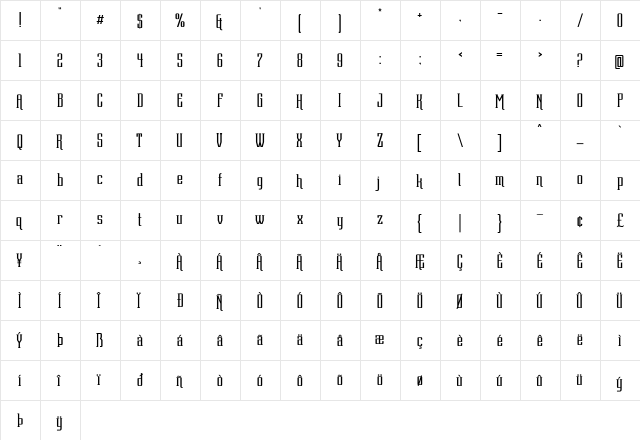
Dentra Font Regular
| Foundry | Ferdiansyah_IjemRockart |
| Designer | Ferdiansyah_IjemRockart |
Design Context for Dentra Font Typeface
Dentra Font is a composed and adaptable typeface that performs quietly and consistently across a wide range of design contexts.